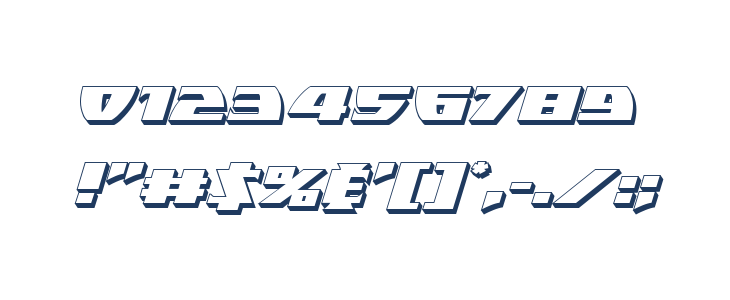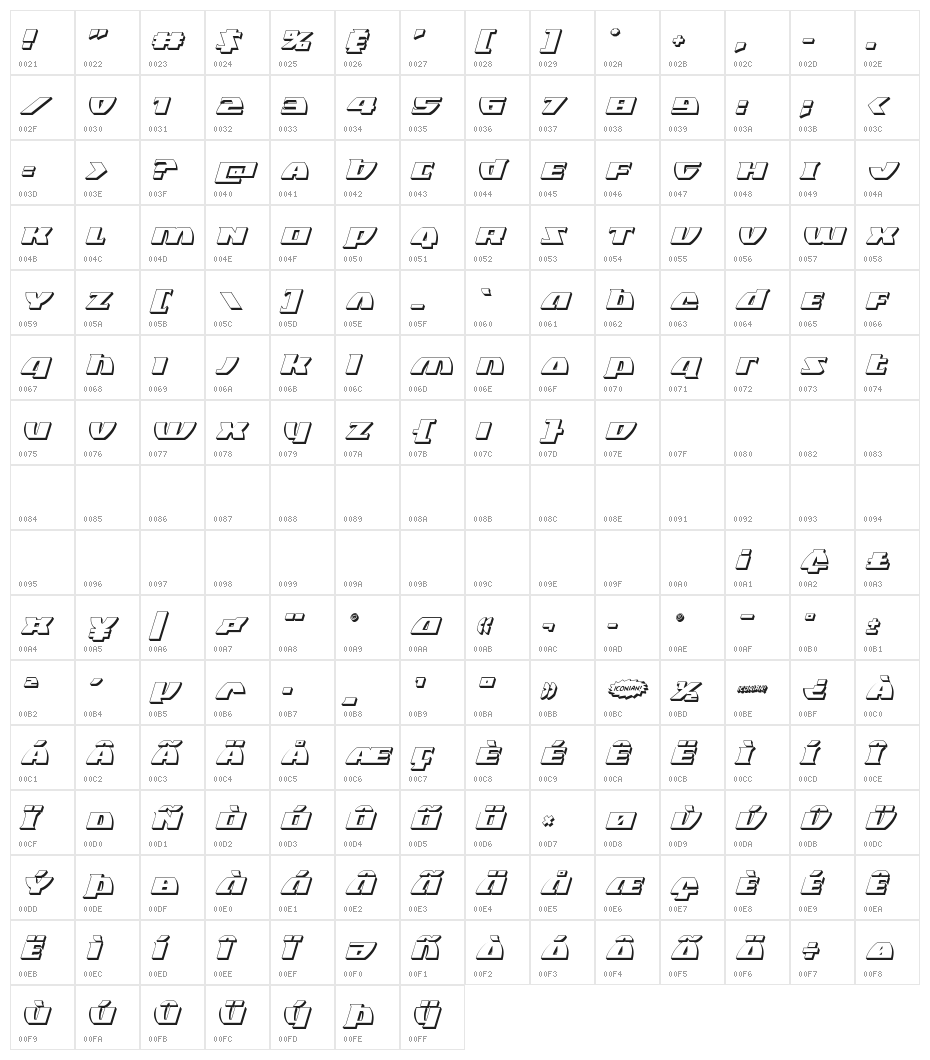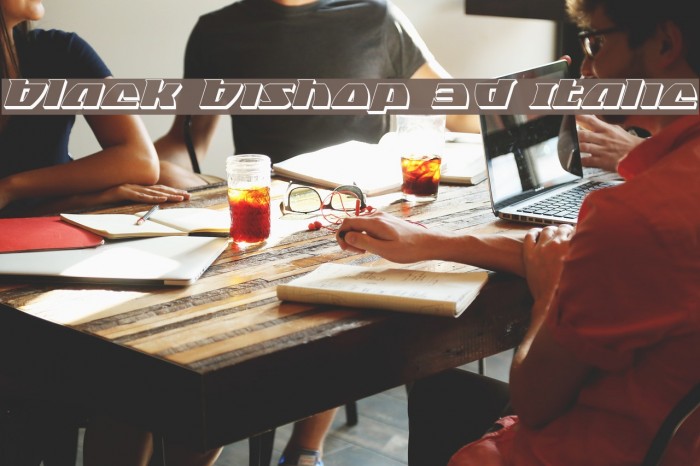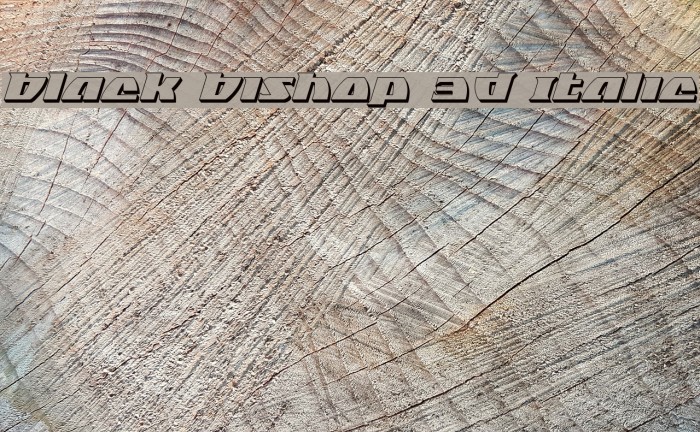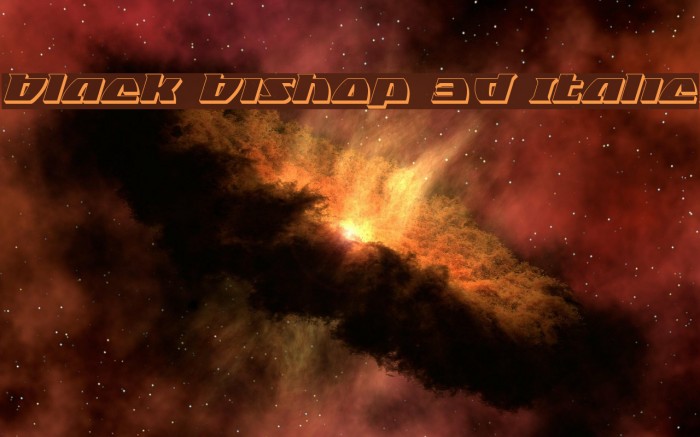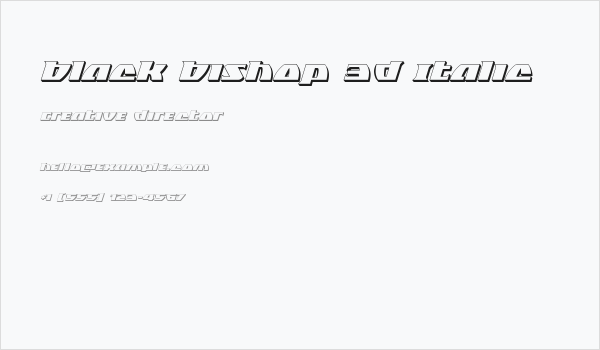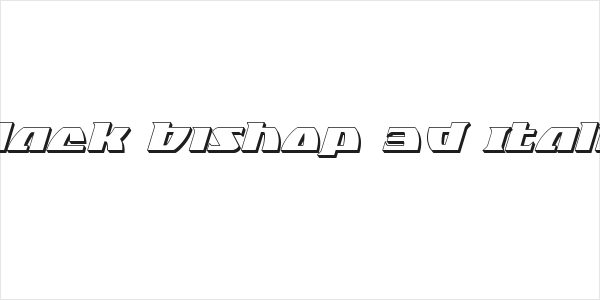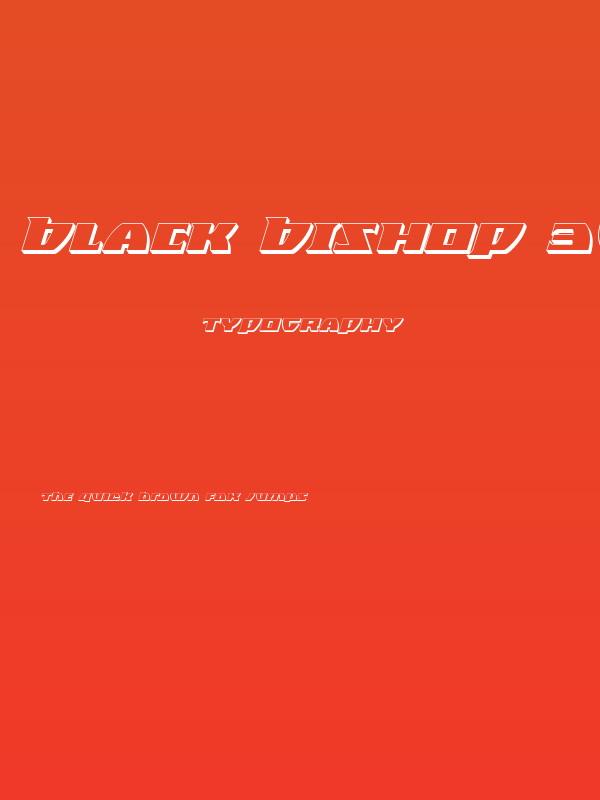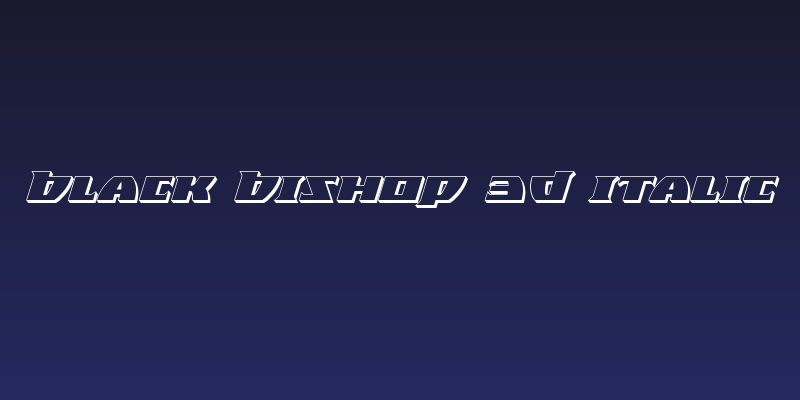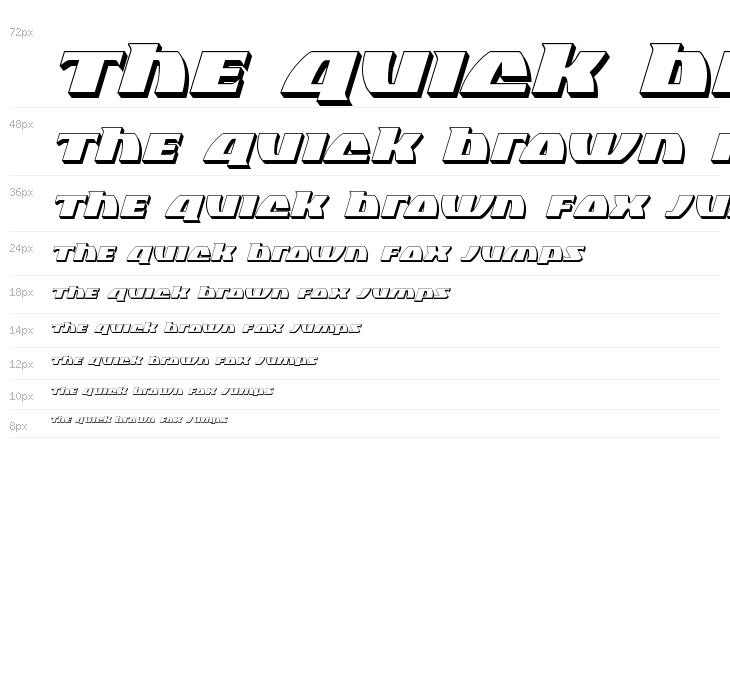
Black Bishop 3D Italic Font
Black Bishop 3D Italic Description
This font features a bold, three-dimensional design with an italic slant, giving it a dynamic and futuristic appearance. The characters are outlined with a thick black border, enhancing the 3D effect and making each letter stand out prominently. The style is geometric, with sharp angles and clean lines, contributing to a modern and edgy look. The uppercase and lowercase letters maintain a consistent style, with the numbers and special characters following the same design principles. This font is ideal for projects that require a strong visual impact, such as posters, logos, and headlines.
Proposed ProjectsIdeal for posters, logos, headlines, and any design requiring a strong visual impact.